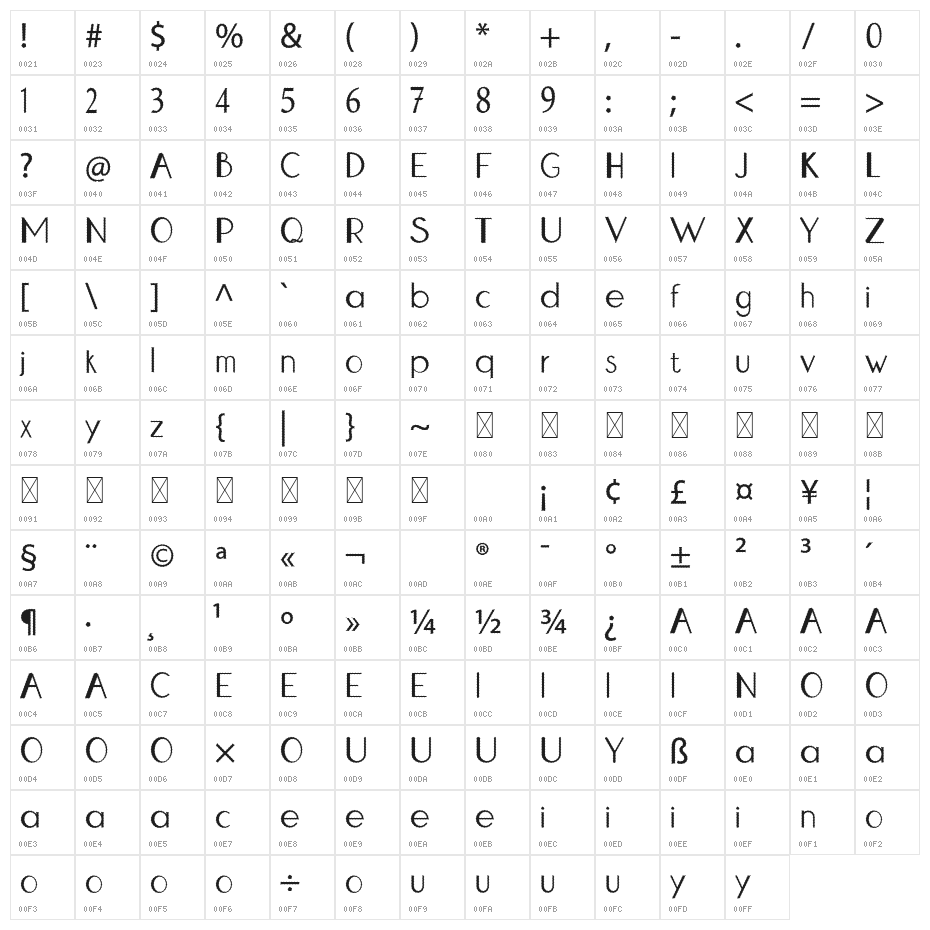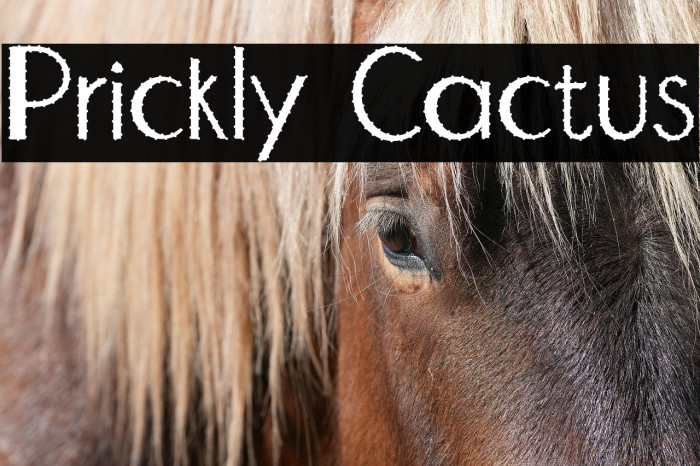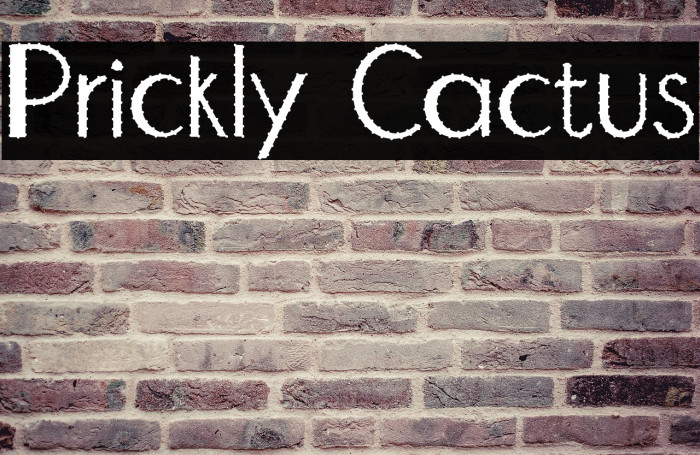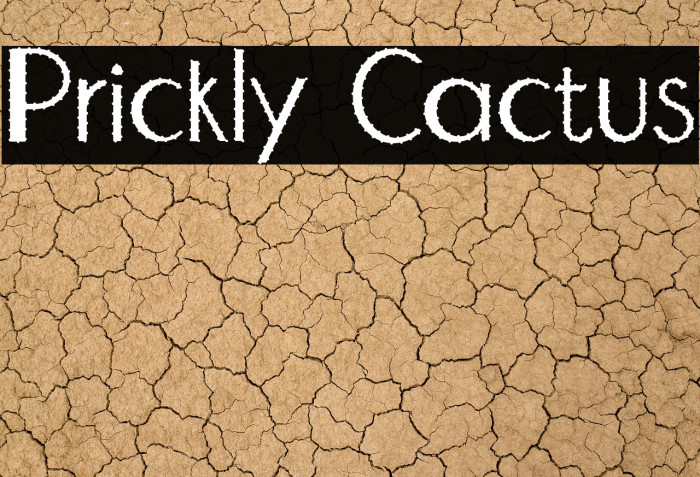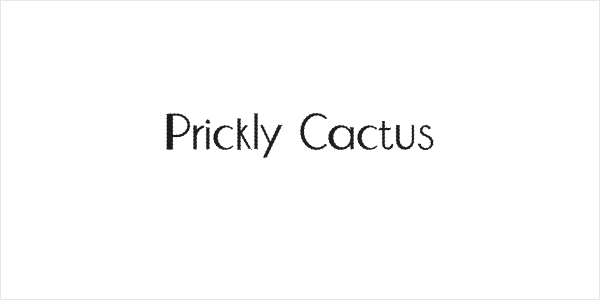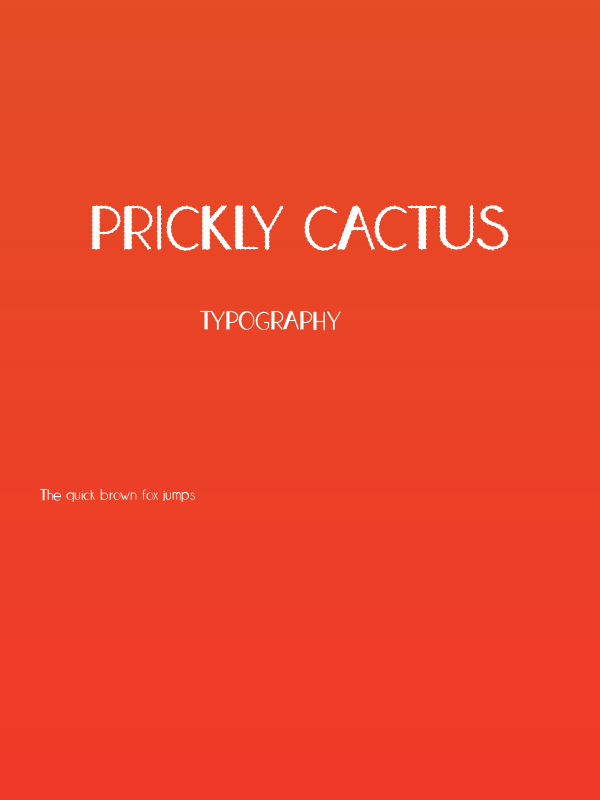
Prickly Cactus Font
Prickly Cactus Description
This font features a unique, spiky design that gives it a distinctive and edgy appearance. The uppercase letters are bold and angular, with sharp points that create a sense of movement and energy. The lowercase letters maintain this dynamic style, offering a cohesive look across all characters. Numbers and special characters are designed with the same attention to detail, ensuring consistency throughout. The font's overall aesthetic is both modern and playful, making it suitable for projects that require a bold statement. Its striking appearance is perfect for capturing attention and adding a creative flair to any design.
A bold, spiky font with a modern and playful aesthetic from Regular fonts.
- Proposed Projects: Ideal for branding, posters, album covers, and any project needing a bold, eye-catching typeface.